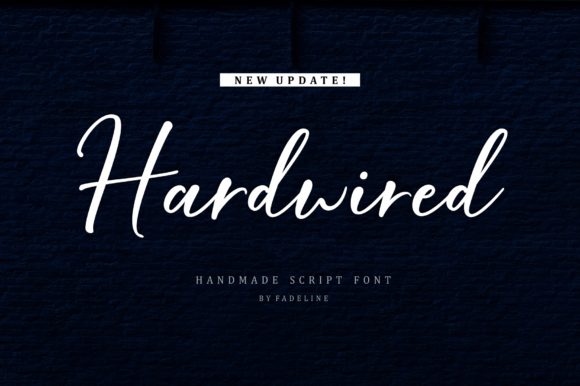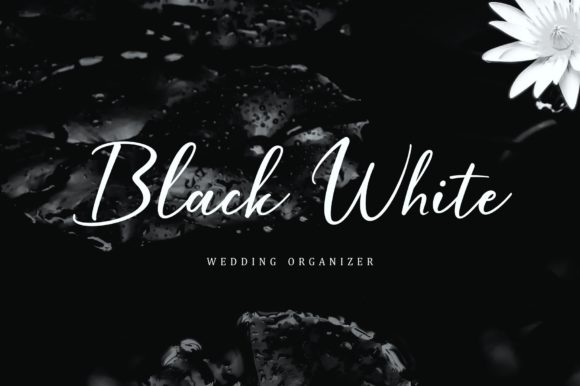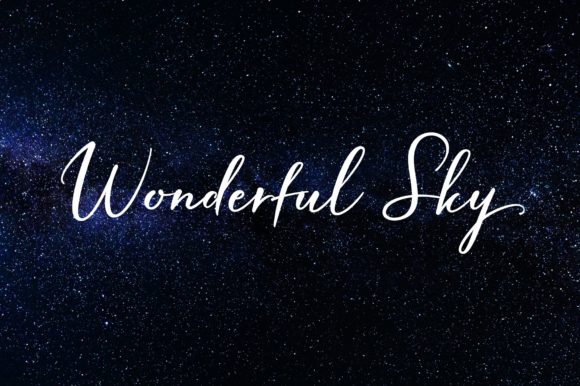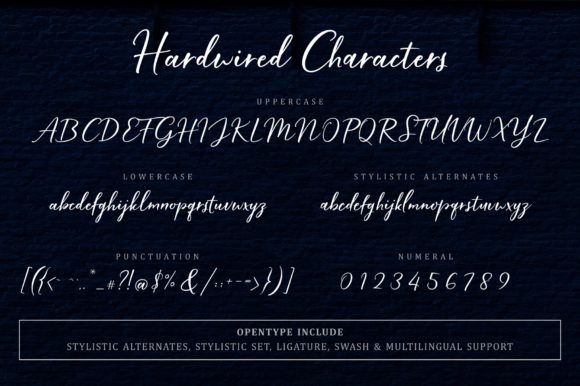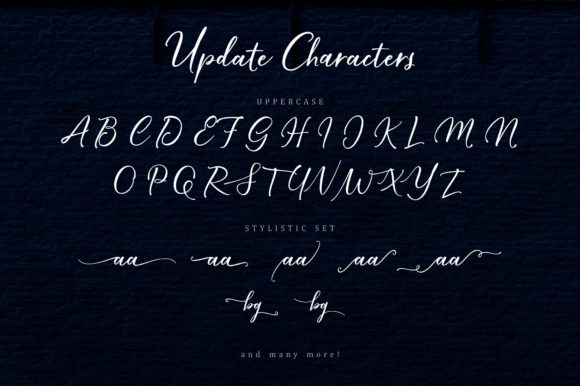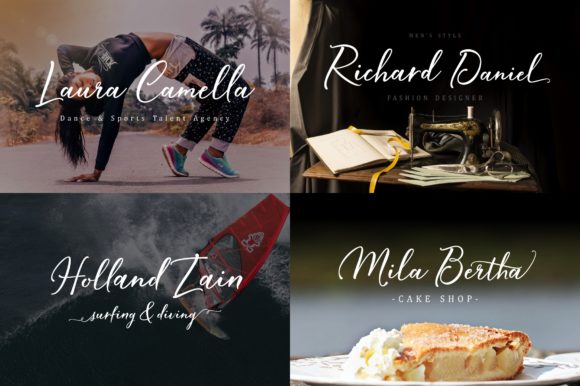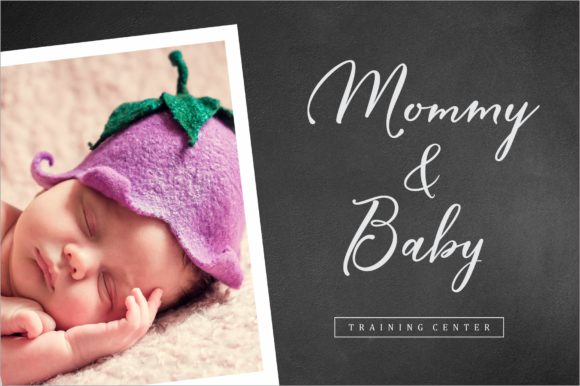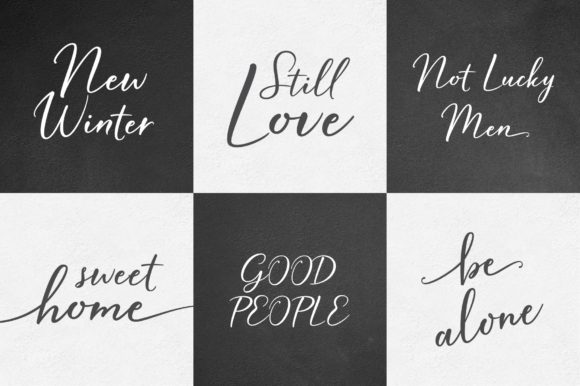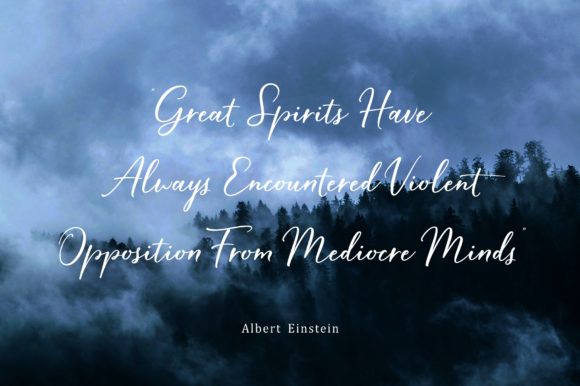
Hardwired Font
About Hardwired Font
Hardwired is a fun and cool handwritten font with a stunning feel. It will add a personal feel to any design project!